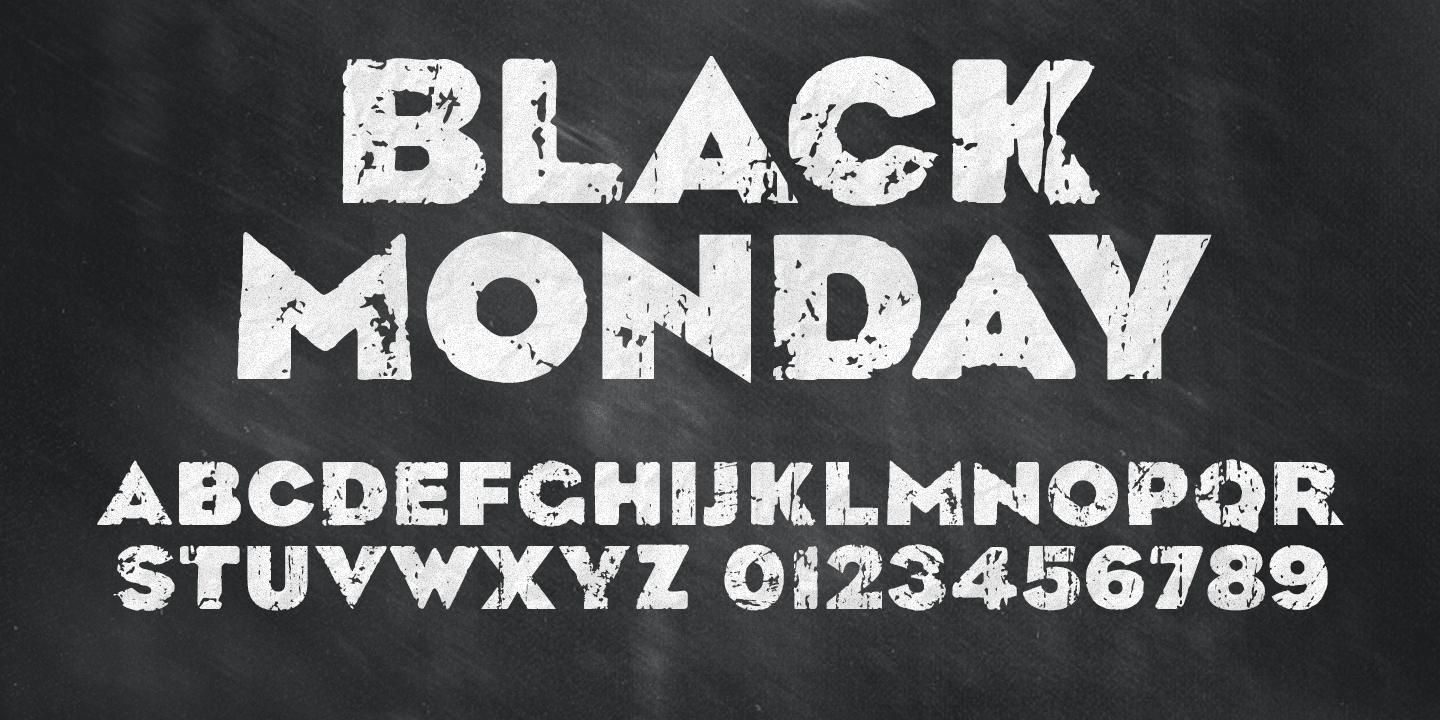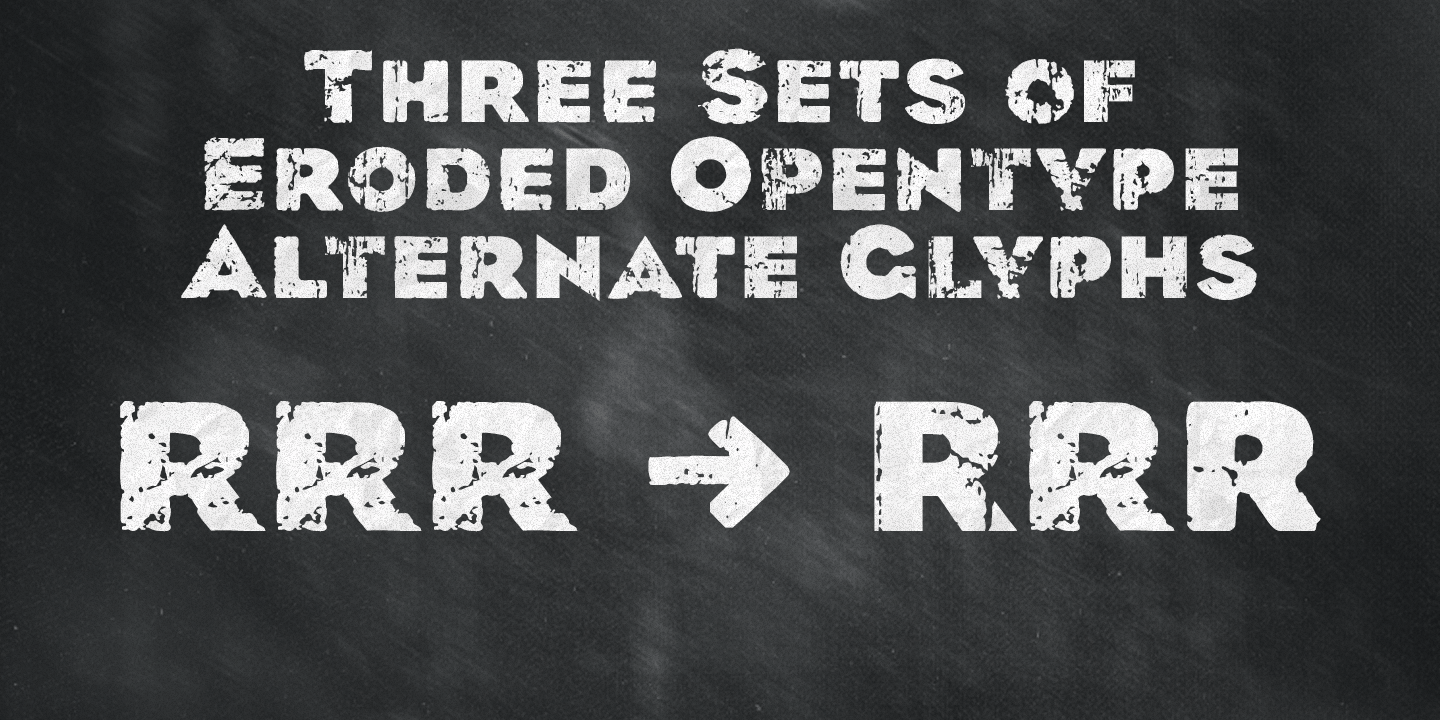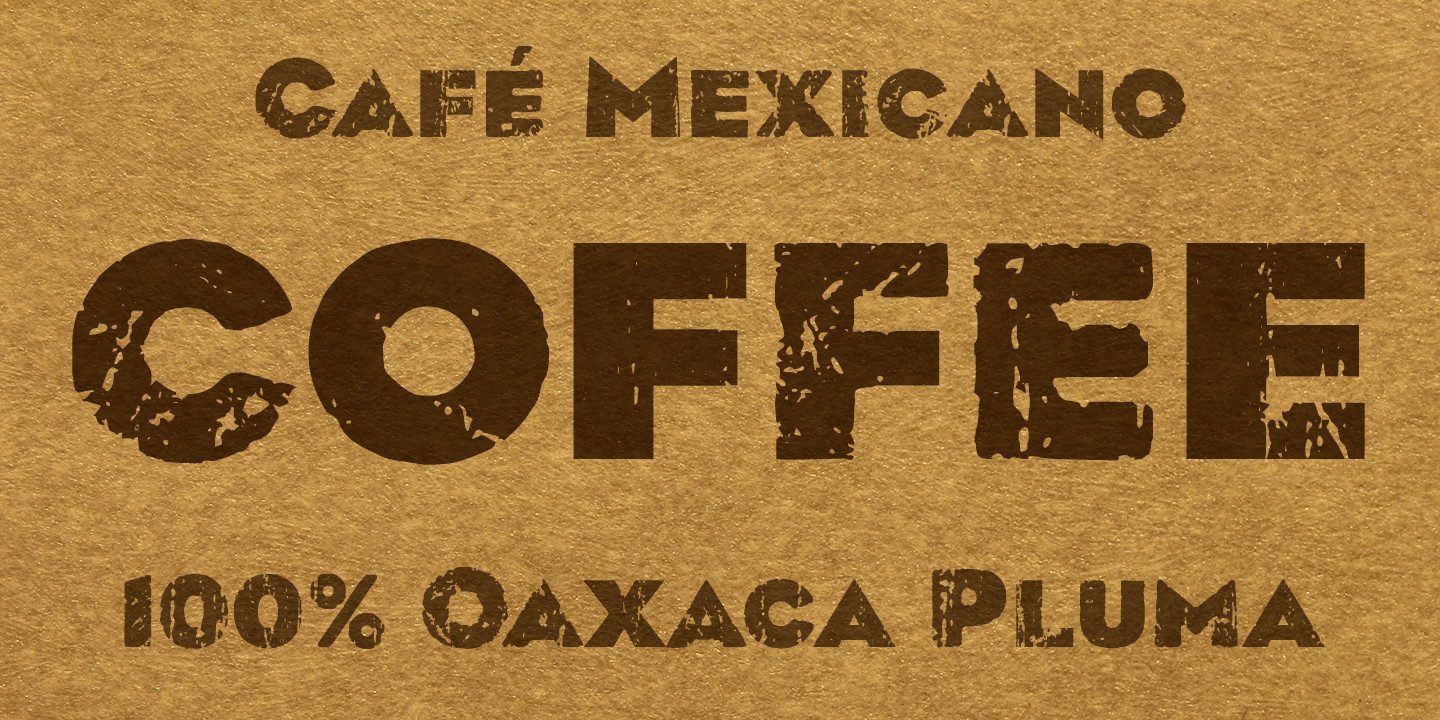
Black Monday
Black Monday is a distressed or ?grunge? version of James Puckett's Recovery typeface. The core of the Black Monday type family is a single Opentype font containing three full character sets of varying degrees of distressing treatment. Every glyph in each of the subsets is unique to provide an organically weathered look and feel.
The three distinct glyph sets are also available as individual fonts for use in applications that do not yet support the Stylistic Sets Opentype feature. These styles are identified as Subset 1, Subset 2, and Subset 3, while the full version is simply ?Black Monday Regular?.